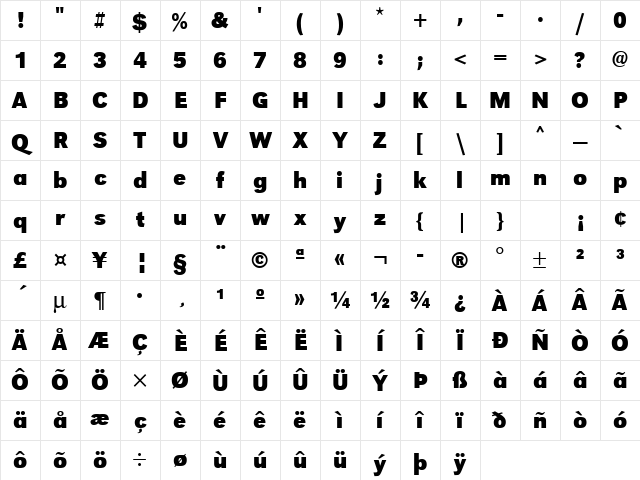
URWGroteskTNar Bold
Design Context for URWGroteskTNar
URWGroteskTNar takes a clean, functional approach - its unadorned letterforms prioritise legibility and work reliably across screen and print environments. Its bold stroke weight gives it real presence on the page.
Font Pairing: Use URWGroteskTNar for headlines alongside a lighter-weight sans or serif for body copy to establish clear visual hierarchy.
Pro Tip: Use URWGroteskTNar for UI labels, navigation, and short-form body copy where clean legibility is the priority.